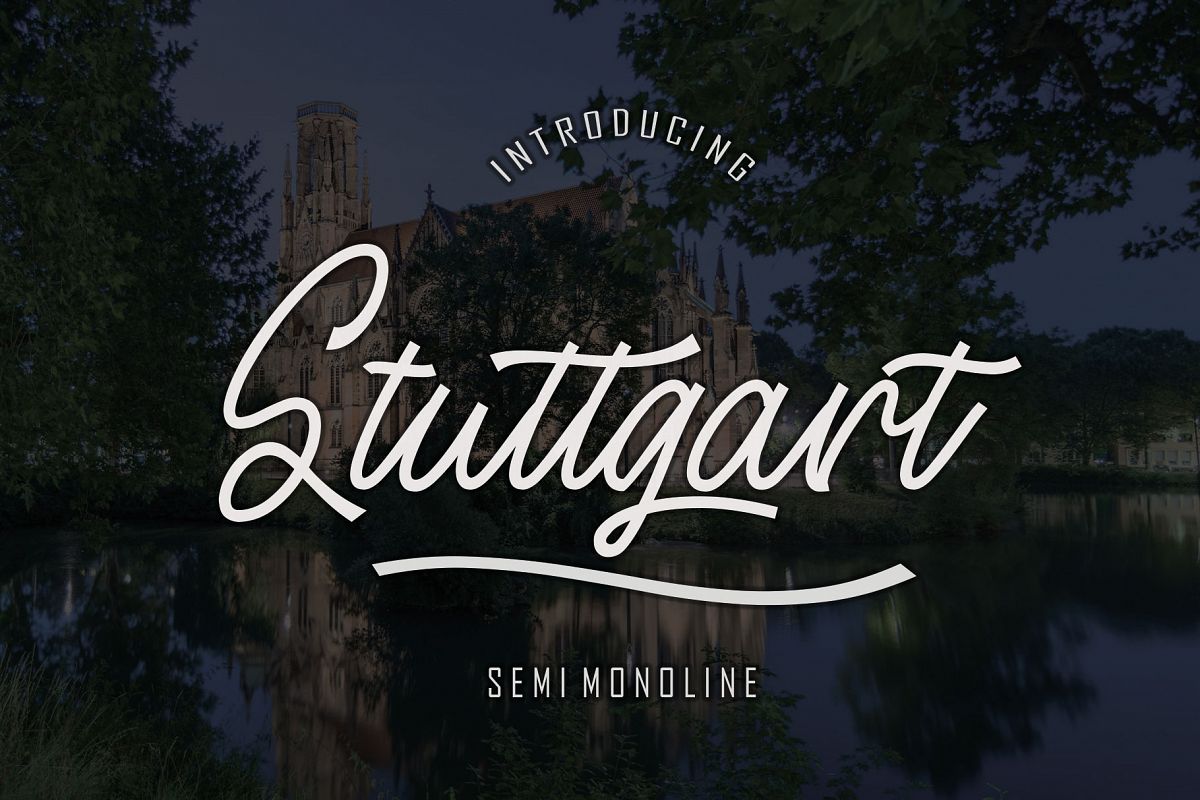
Stuttgart
Stuttgart Semi-mono comes with a monoline size that contains a thick tail to adjust your needs, looks beautiful and attractive in making branding projects, logos, wedding designs, social media posts, advertisements, product packaging, product design, labels, photography, watermarks, invitations, stationery, and other projects according to what you need to develop your imagination. You only need a few minutes to try ..